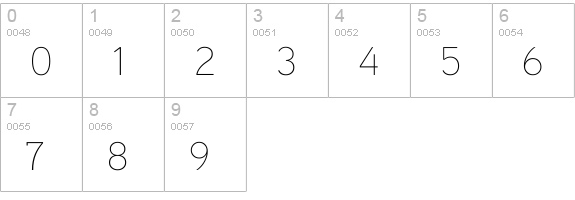
Aaux ProThin Font Details
Aaux ProThin font is a sleek and modern typeface that exudes sophistication and elegance. Its ultra-thin weight adds a touch of delicacy to any design, making it perfect for projects that require a refined and minimalist aesthetic. The clean lines and subtle curves of Aaux ProThin create a sense of timeless beauty that can elevate any text or headline. What's even better is that Aaux ProThin font is available for free download at FontsMarket.com. This means you can easily access this stunning typeface and use it in your projects without any cost. Whether you're designing a website, creating a logo, or working on a print layout, Aaux ProThin font will bring a touch of class and sophistication to your work. Download it today and enhance your designs with this elegant and versatile typeface.